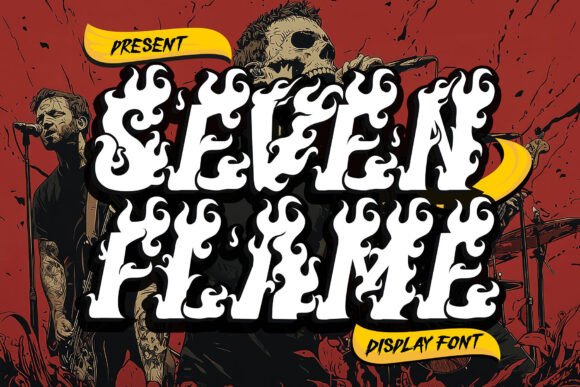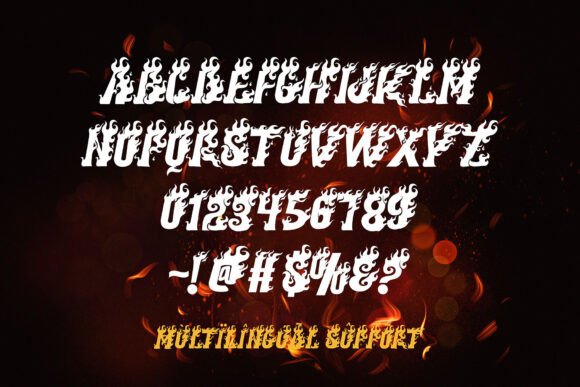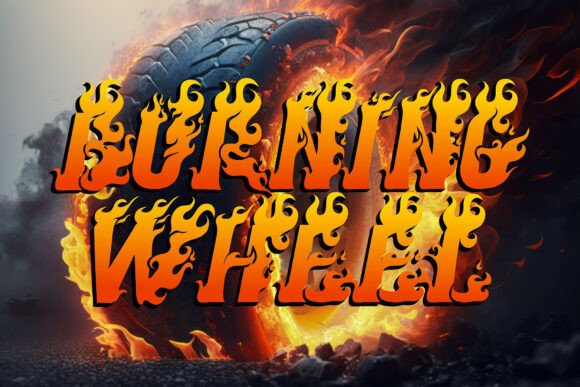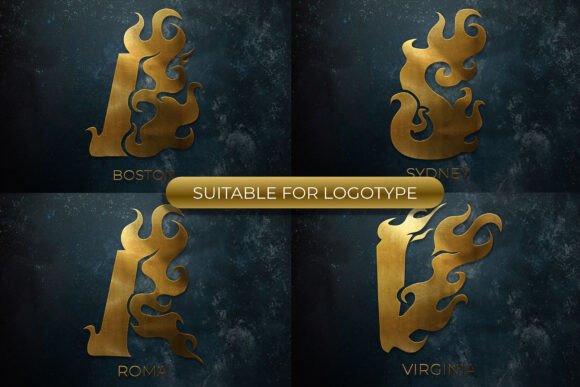
Seven Flame Font
About the Seven Flame Font
Unleash your creativity with Seven Flame Font, a versatile font perfect for a wide range of applications. Ignite an unforgettable inferno with Seven Flame, a standout display font bursting with elemental intensity. Each letterform weaves in dancing flames, injecting heated dynamism and kinetic energy into any project. High-impact and searingly bold, Seven Flame encapsulates the evocative essence of fire in motion, illuminating designs with an impactful, blazing aesthetic. Ideal for posters, event graphics and album covers, it is also perfectly suited for branding seeking a sweltering, sizzling style. With Seven Flame, transform your designs into a powerful statement that leaves a long-lasting, fiery impression.
Seven Flame Font Usage Examples
Seven Flame Font Example